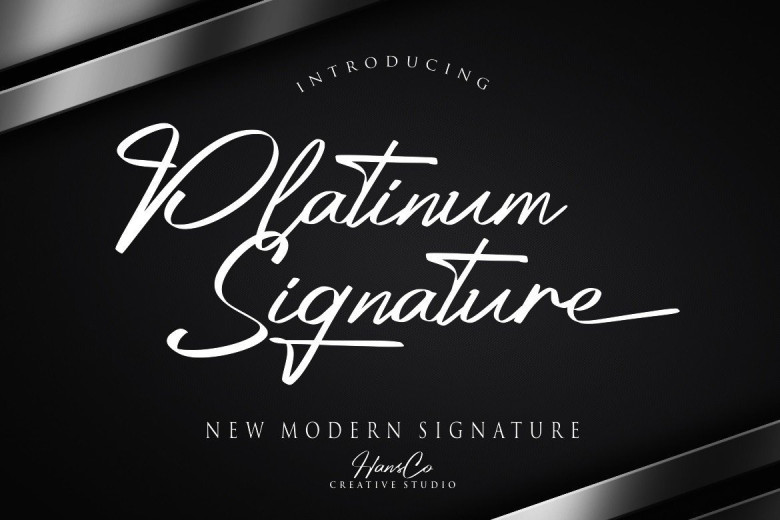
Platinum Signature Handwritten Font
Platinum Signature Font is a nice handwritten script font with pointed edges that makes it look as if it was written with a fountain pen– perfect for getting that handwritten flair on your wedding stationery, social media graphics, book covers, and all your other design projects that beg for an organic, handwritten look.